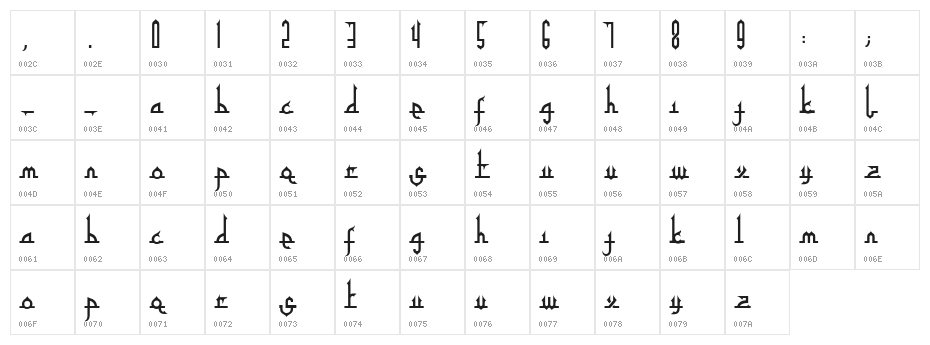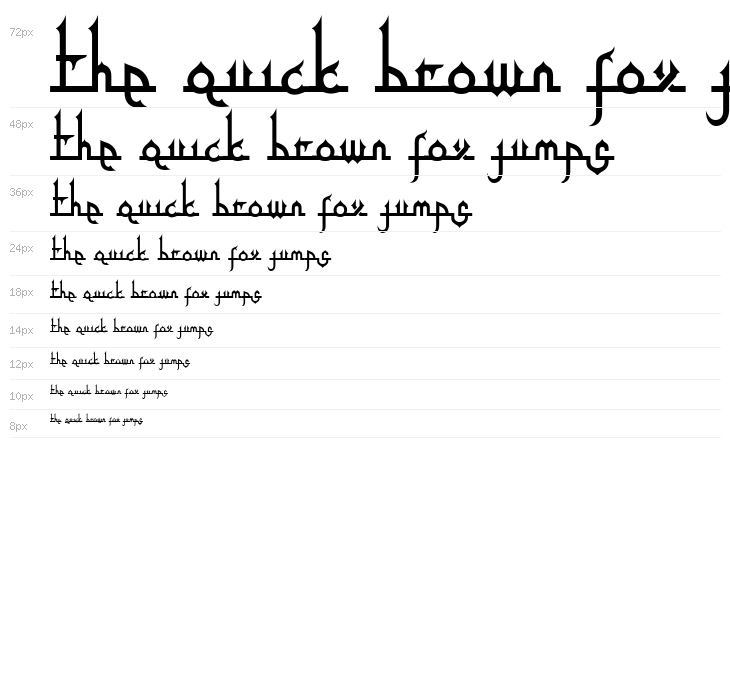
Tafakur Font
Tafakur Description
This font features a unique and striking design with a blend of sharp angles and smooth curves. The uppercase and lowercase letters are characterized by elongated vertical strokes and horizontal lines that intersect the characters, creating a sense of balance and symmetry. The numbers follow a similar style, maintaining the geometric and angular aesthetic. The special characters are integrated seamlessly, adding to the overall cohesive look. This font's bold and decorative nature makes it stand out, offering a modern twist on traditional calligraphic styles.